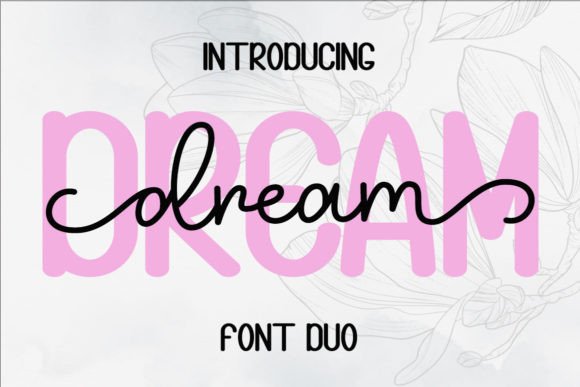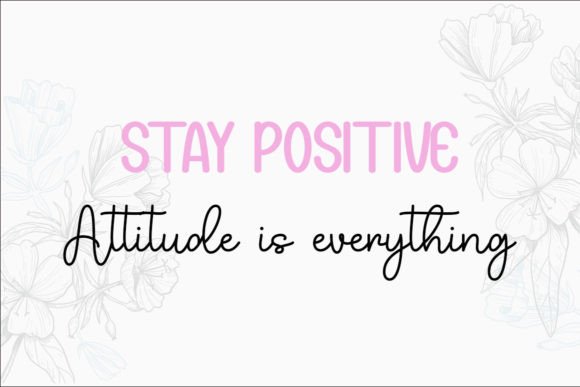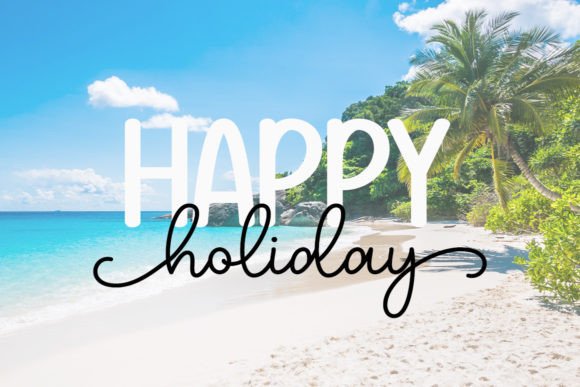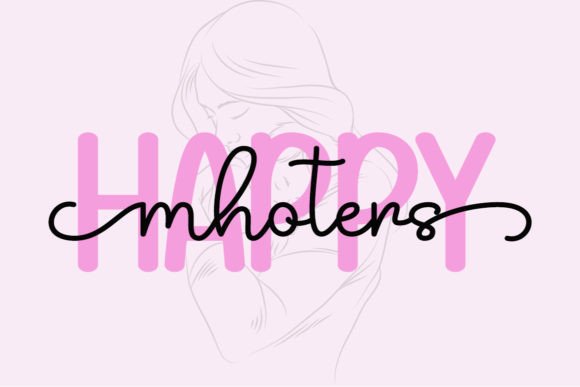
Dream Duo Font
About the Dream Duo Font
Make a bold statement with Dream Duo Font, a powerful and memorable font. Dream is a lovely handwritten font duo featuring well-rounded characters and a stylish vibe. Get inspired by its light and approachable style, and use it in your most favorite creations. This font is PUA encoded which means you can access all of the glyphs and swashes with ease!
Dream Duo’s light and approachable style makes it ideal for projects needing a friendly and slightly informal feel. It excels in branding applications such as logos for boutiques, cafes, or artisan businesses, as well as short headlines, social media graphics, and packaging designs. Avoid using it for large bodies of text or UI elements; its handwritten nature can hinder readability in extended use.
Pairing Dream Duo with a clean sans-serif like Montserrat or Lato provides a strong contrast, balancing its playful handwritten style with a modern, legible element. For a more sophisticated look, consider pairing it with a delicate serif font like Playfair Display. The combination offers a touch of elegance without overwhelming Dream Duo’s inherent charm.
Its overall personality is best described as friendly and approachable, with a touch of playful sophistication. This makes it a versatile choice for projects aiming for a warm and inviting aesthetic.